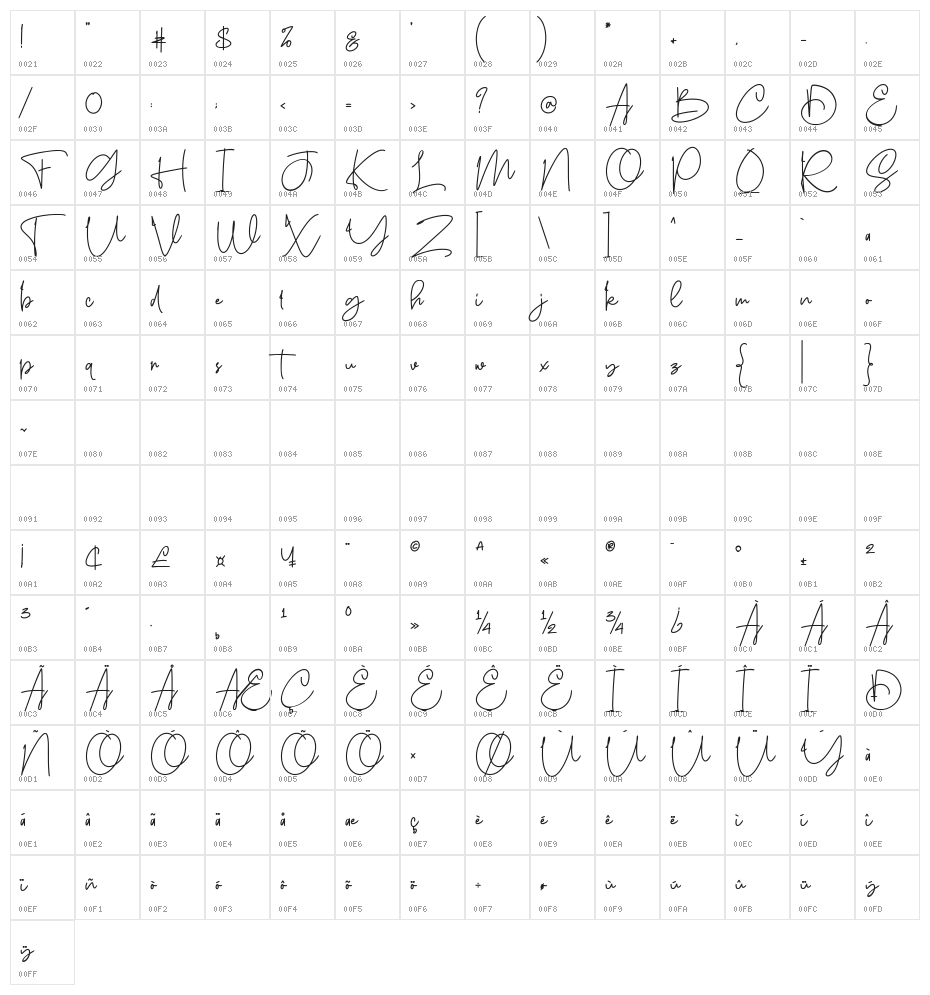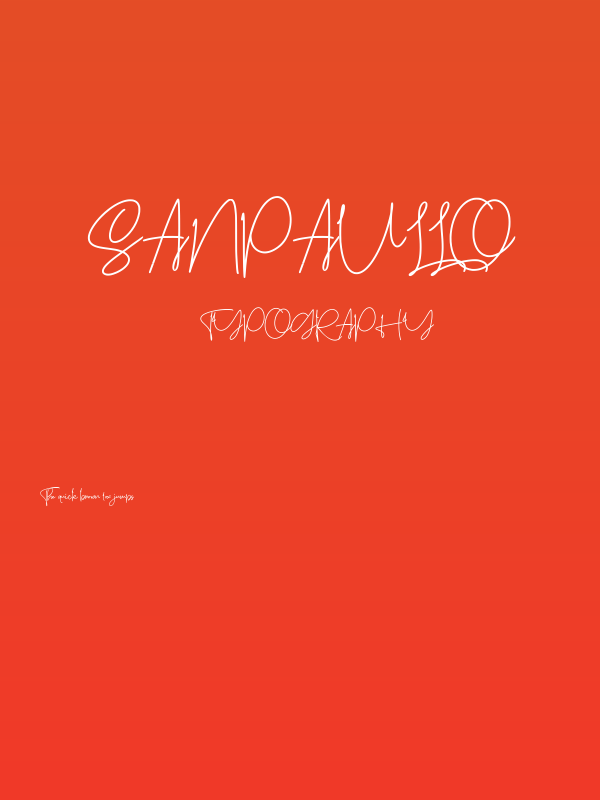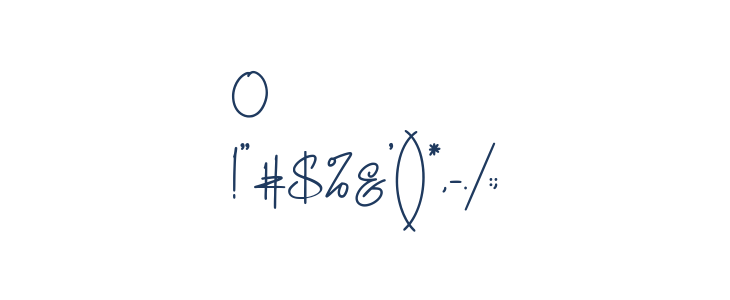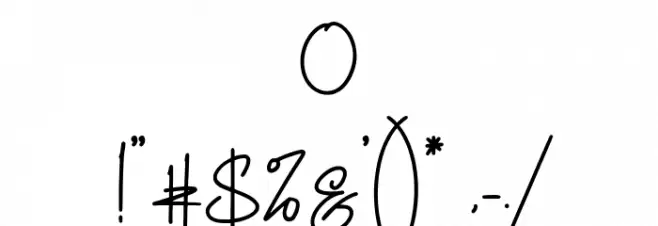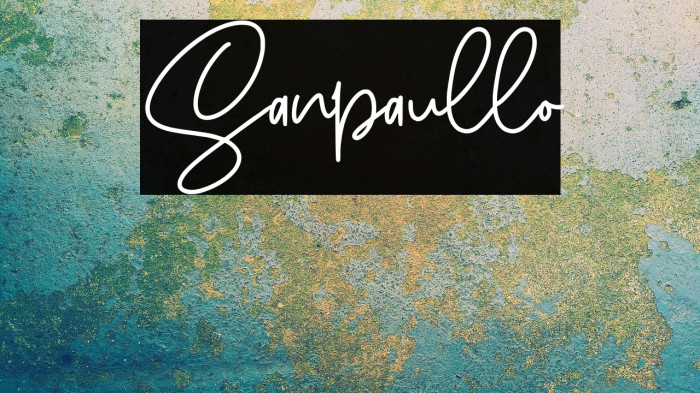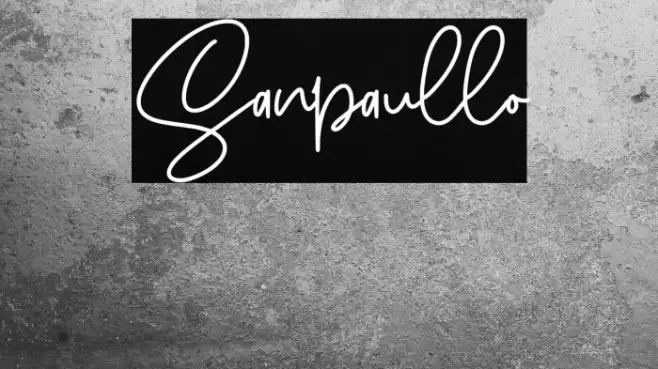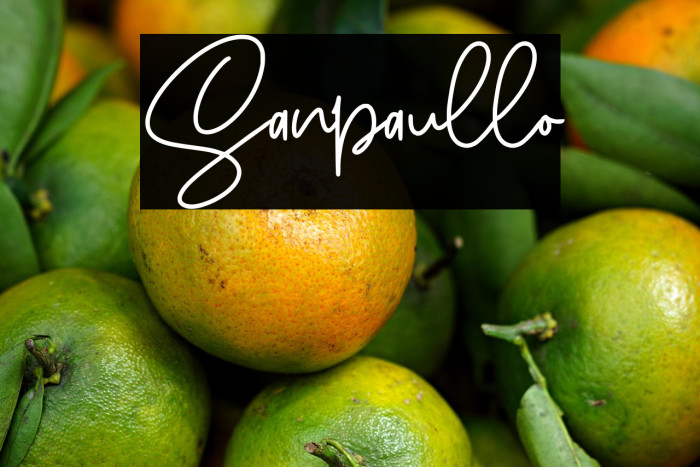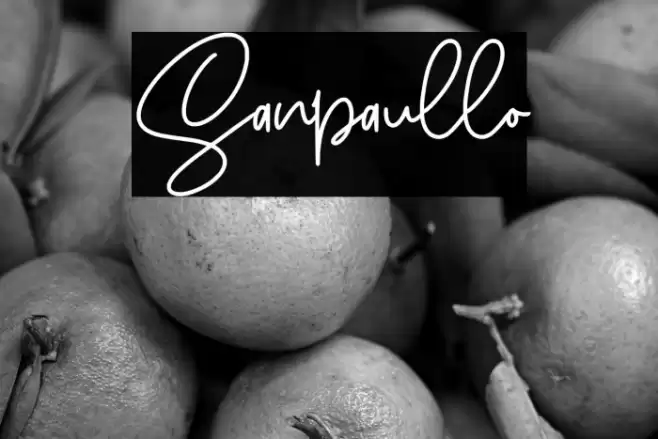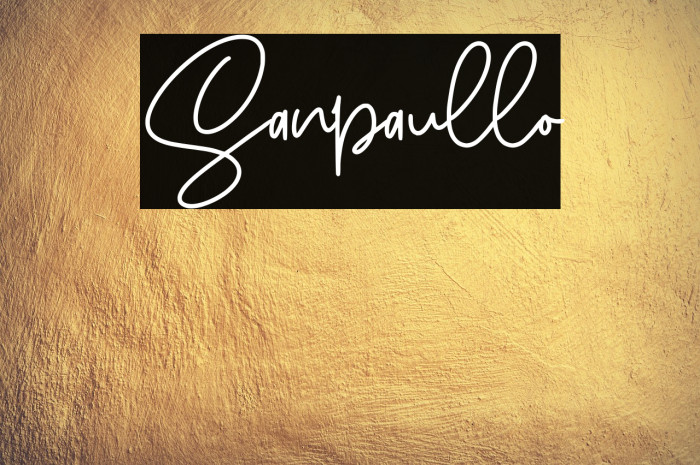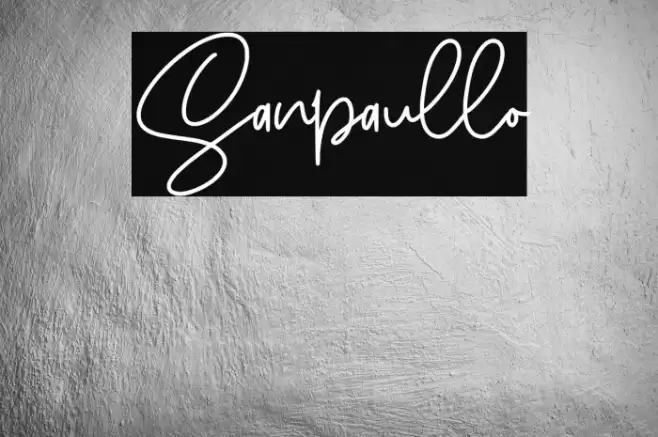
Sanpaullo Font
Sanpaullo Description
This font features a dynamic and expressive handwritten style, characterized by its fluid and flowing letterforms. The uppercase letters exhibit a playful, slightly chaotic arrangement with varying heights and angles, giving it a lively and spontaneous appearance. The lowercase letters maintain a more consistent baseline, yet they retain the same energetic flair with loops and curves that enhance its handwritten charm. The numerals are bold and clear, matching the overall aesthetic. Special characters are creatively integrated, adding to the font's versatility. This font is ideal for projects that require a personal touch or a sense of movement and creativity.
| Use Case | Logos, Headlines, Creative projects |
| Proposed Projects | Ideal for greeting cards, invitations, personal branding, and creative projects that require a personal touch. |